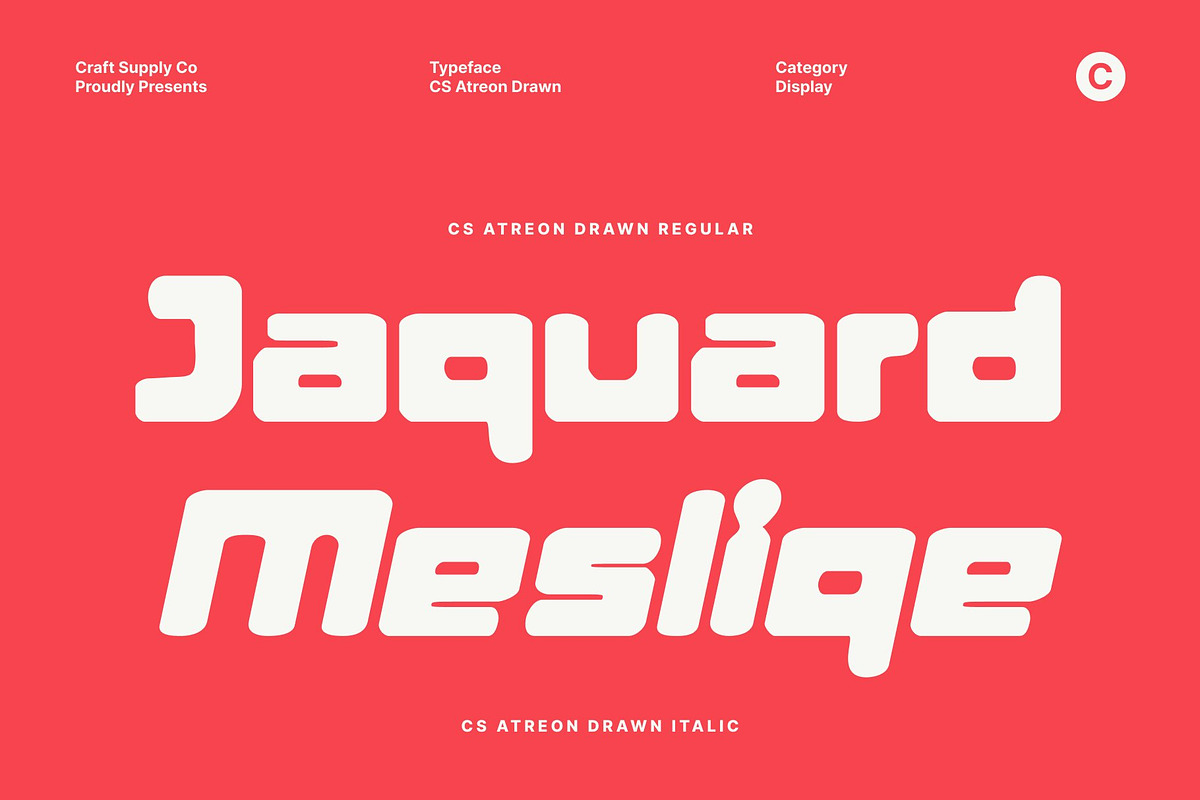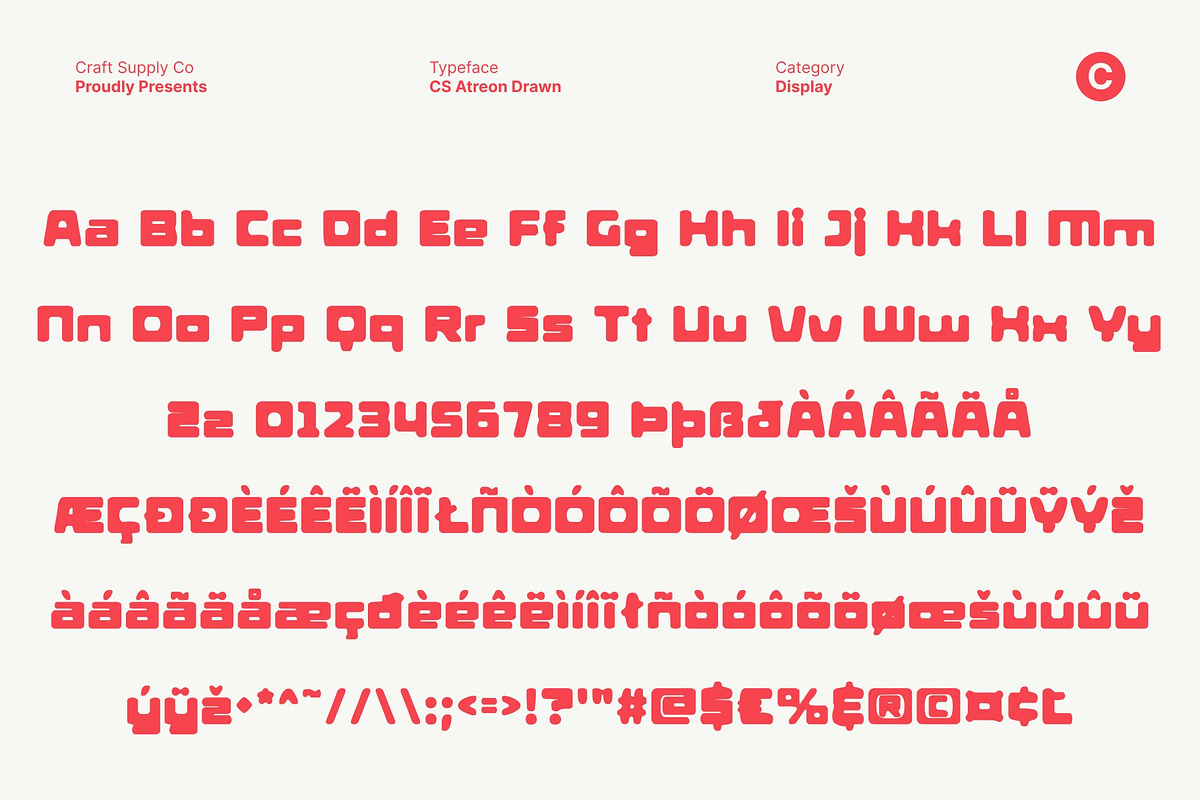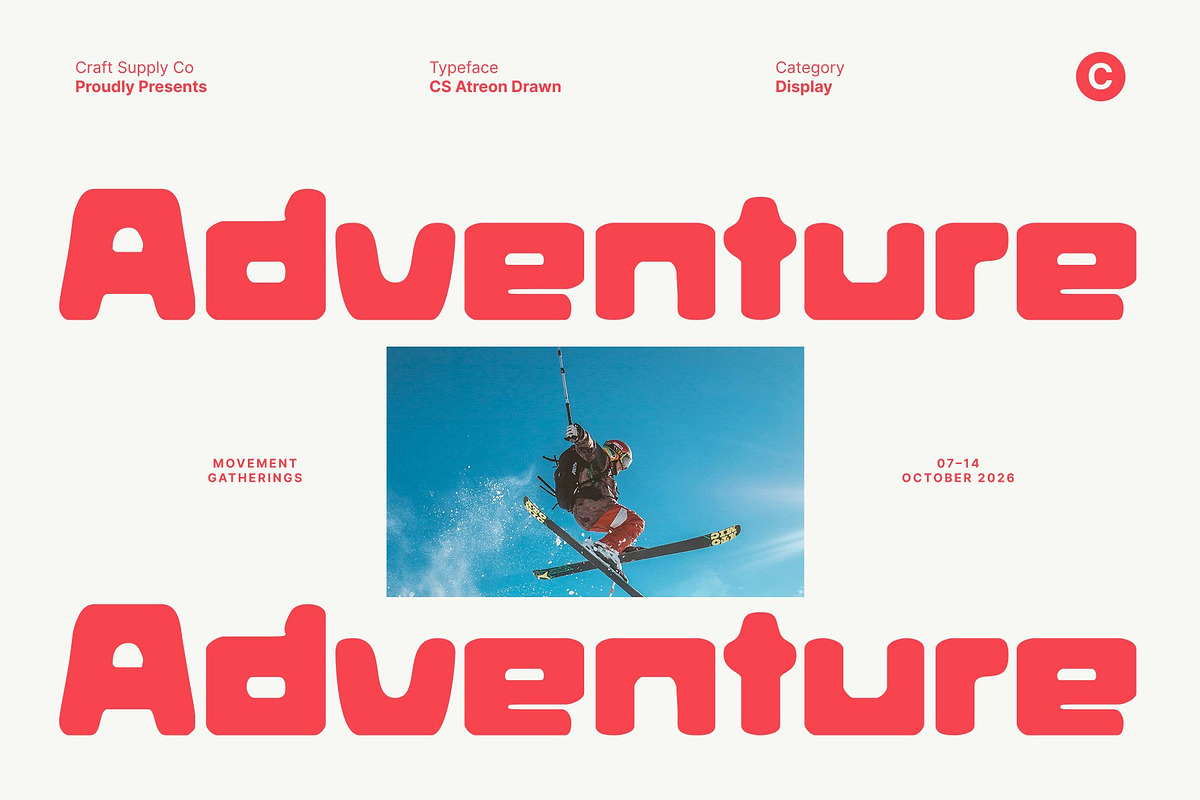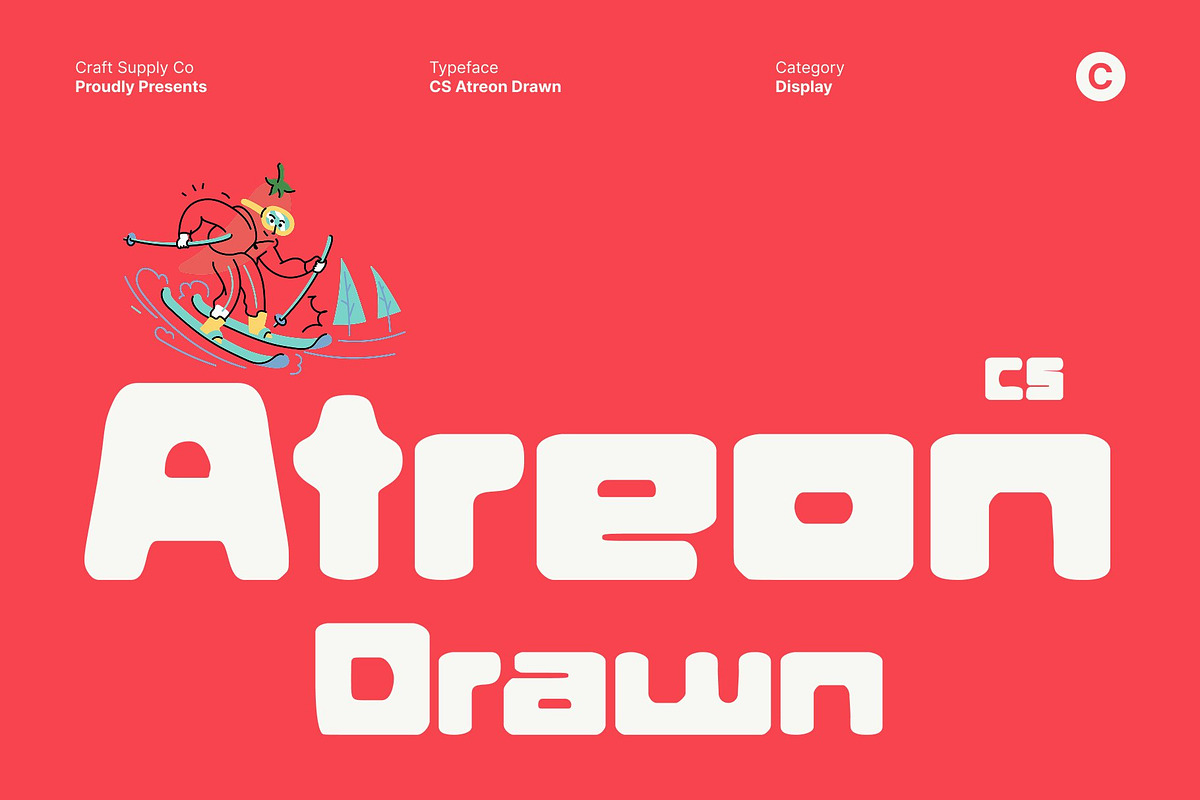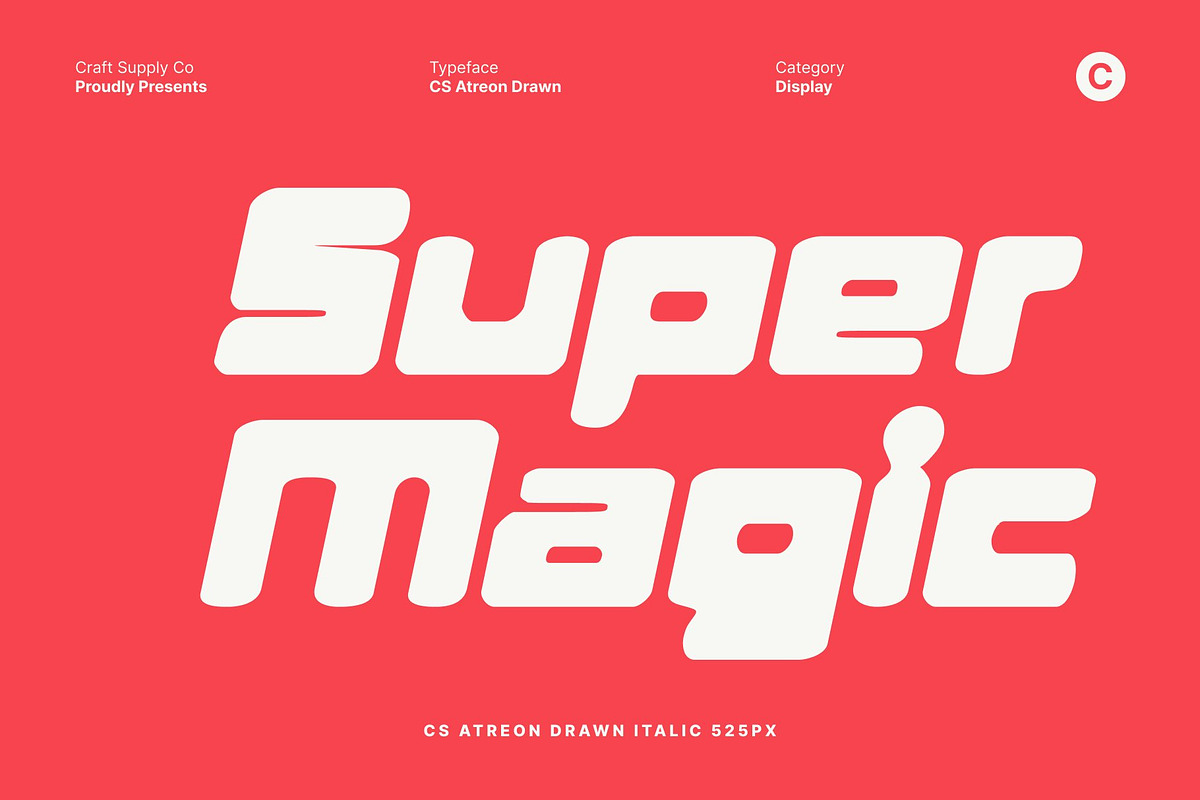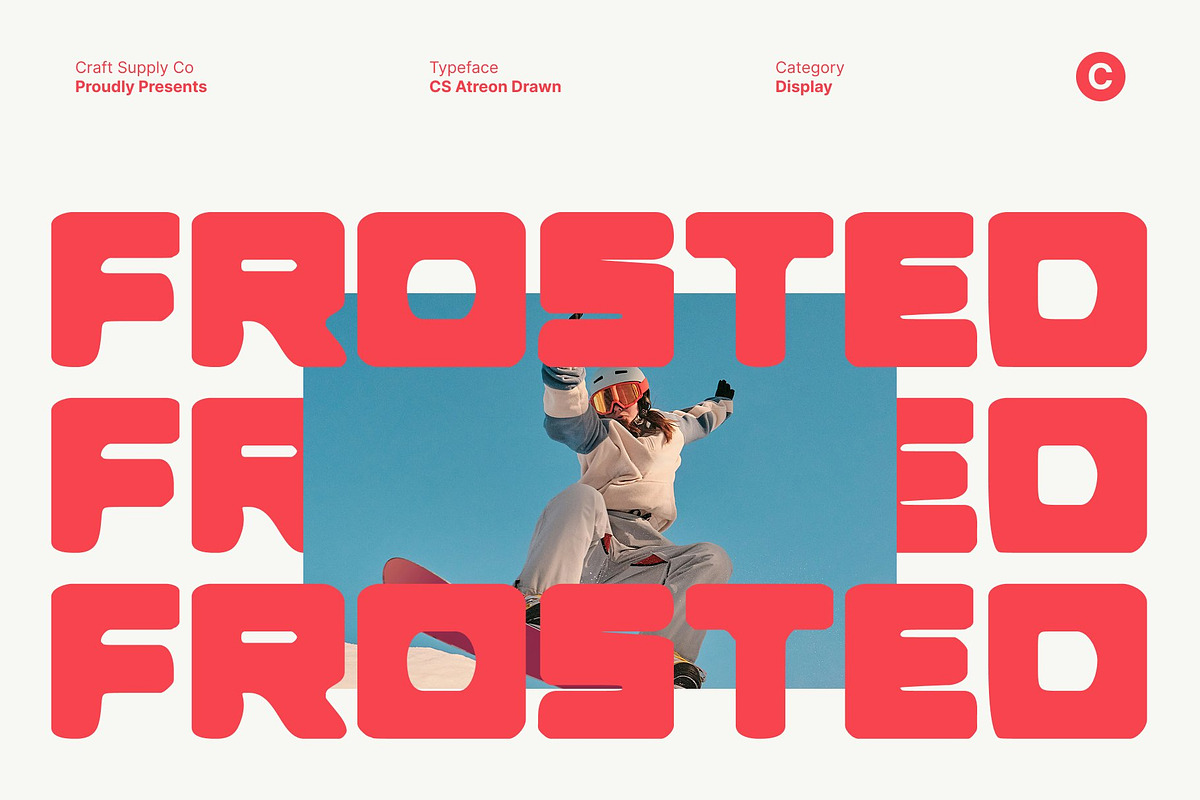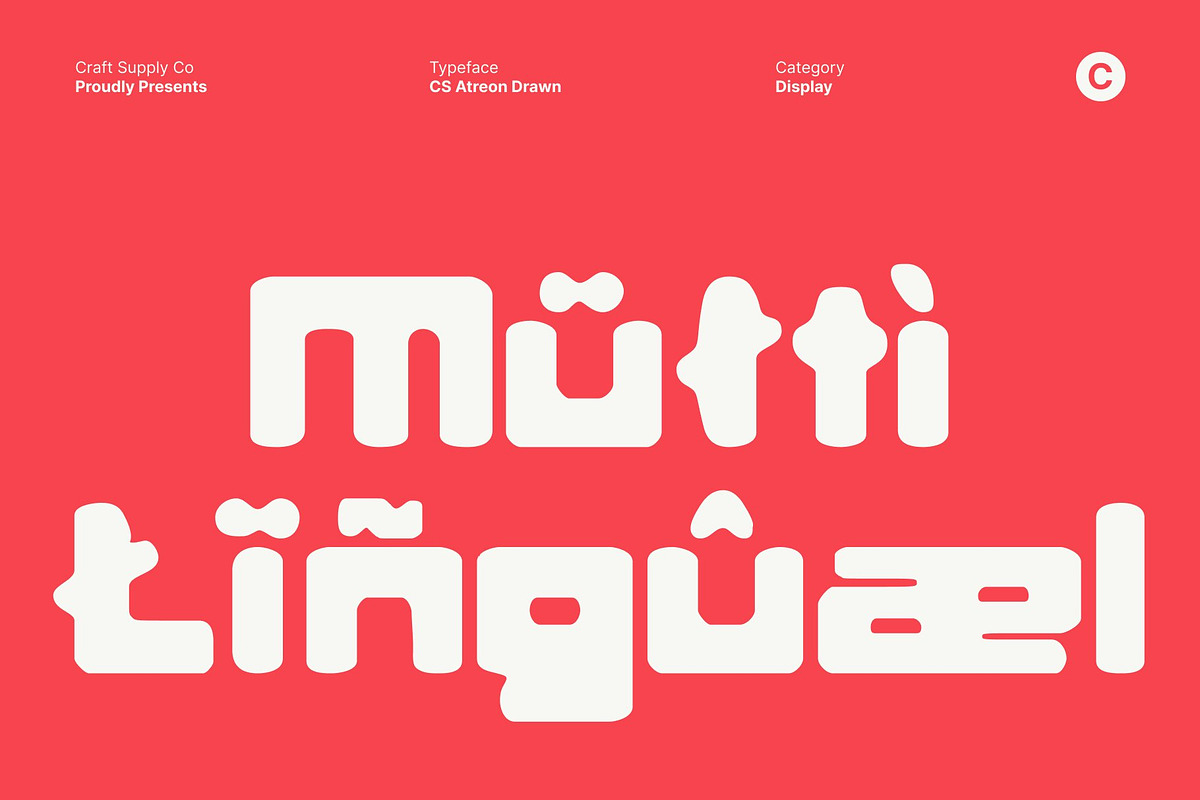
CS Atreon Drawn
CS Atreon Drawn – Futuristic Power with Geometric Precision
Bold Display Sans Serif for Maximum Impact This is a bold display sans serif font created to deliver strong visual impact and confident expression. Built with solid weight and assertive presence, it immediately captures attention in any layout. Its bold construction makes every word feel powerful, clear, and unmistakably modern.
Geometric Structure with Futuristic Style Defined by precise geometry and sharp, futuristic lines, this font reflects a forward-looking design mindset. Each letterform is structured and intentional, giving a clean, technological aesthetic that feels innovative and progressive. It’s perfectly suited for designs that want to communicate strength, precision, and modern sophistication.
Drawn Texture for Unique and Expressive Character What sets this font apart is its hand-drawn effect, which introduces a natural and slightly organic texture to its rigid geometric base. This drawn finish softens the overall appearance, adding individuality and creative nuance while maintaining clarity and strength. The result is a futuristic font that feels bold yet human.
Perfect for Modern Branding and Digital Visuals This font excels in modern branding, tech-inspired visuals, digital campaigns, posters, and editorial headlines. Its combination of geometric precision, futuristic style, and unique drawn character makes it an ideal choice for projects that demand confidence, originality, and strong contemporary appeal.